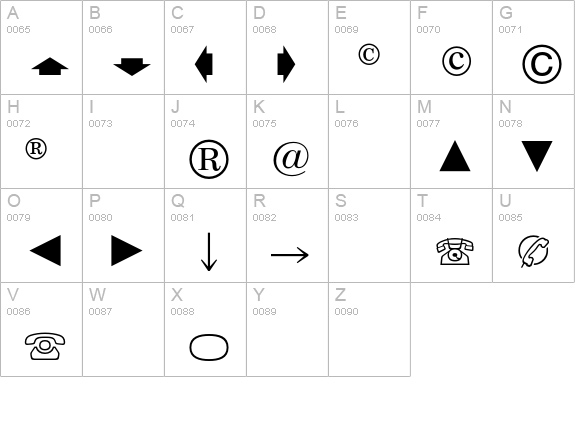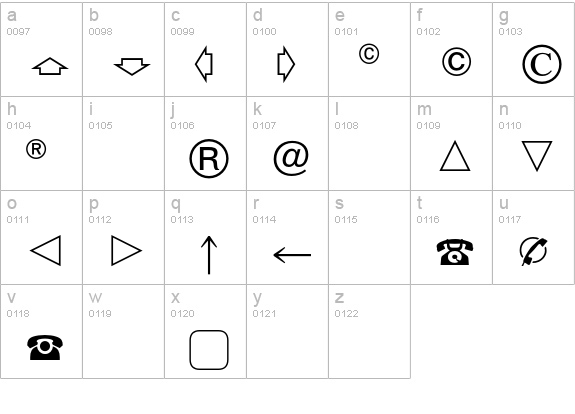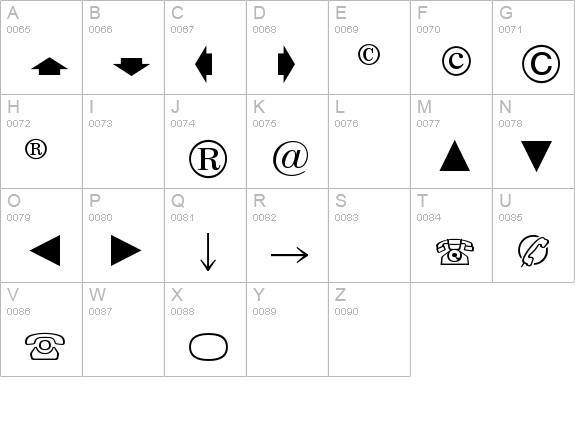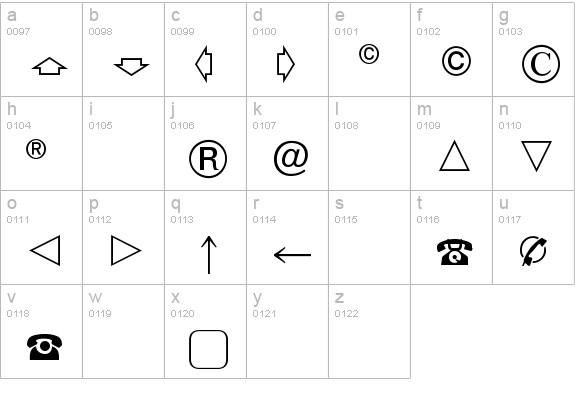
European Pi 4 Font Details
The European Pi 4 font is a visually striking and versatile typeface that exudes elegance and sophistication. With its sleek lines and unique character designs, this font is perfect for adding a touch of European charm to any project. Whether you're creating a vintage-inspired poster or designing a modern logo, European Pi 4 will make your text stand out and leave a lasting impression. Best of all, the European Pi 4 font is available for free download at FontsMarket.com. This means you can start using this exquisite font in your designs right away, without having to worry about any costs. So why wait? Download European Pi 4 today and elevate your projects with its timeless appeal and distinctive style.